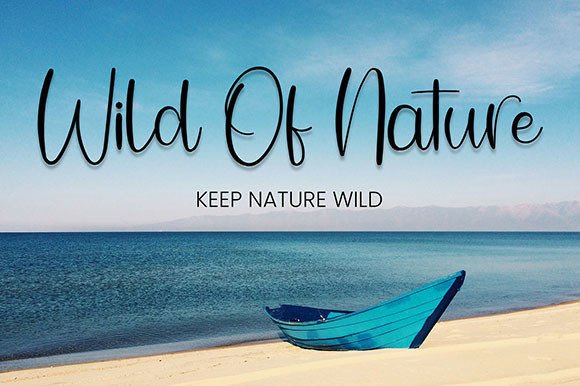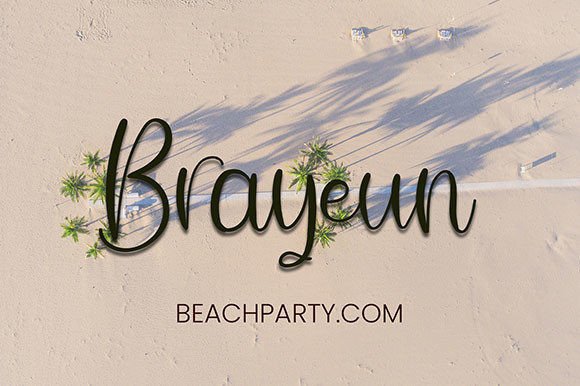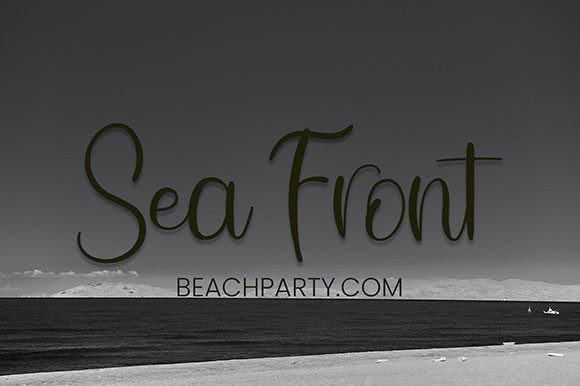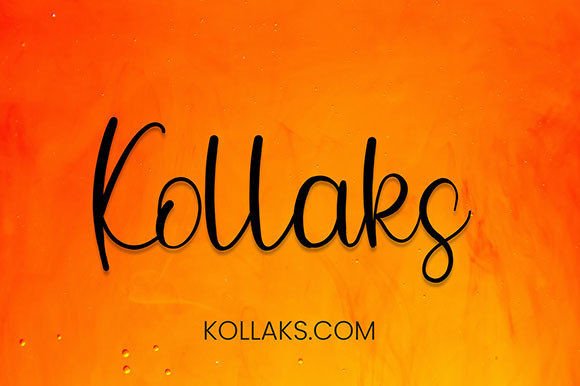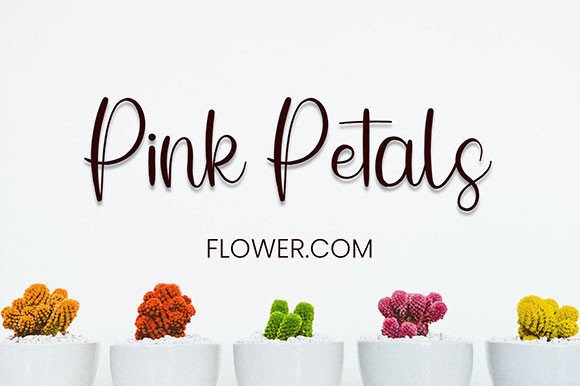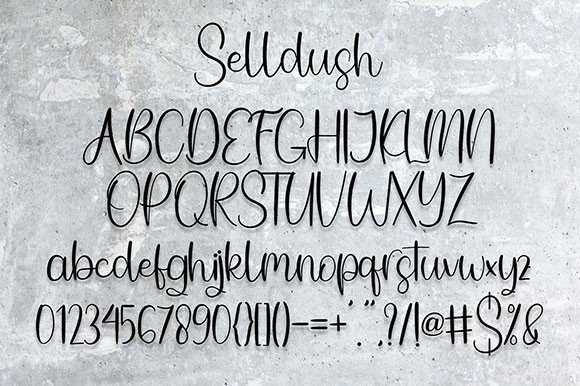
Introduction to Selldush Font
Selldush is a simple and charming handwritten font.
This font will be suitable for various projects such as quotes, logos, blog headers, posters, ribbons, fashion, clothing, letters, invitations, stationery, etc .
Key Features of Selldush Font